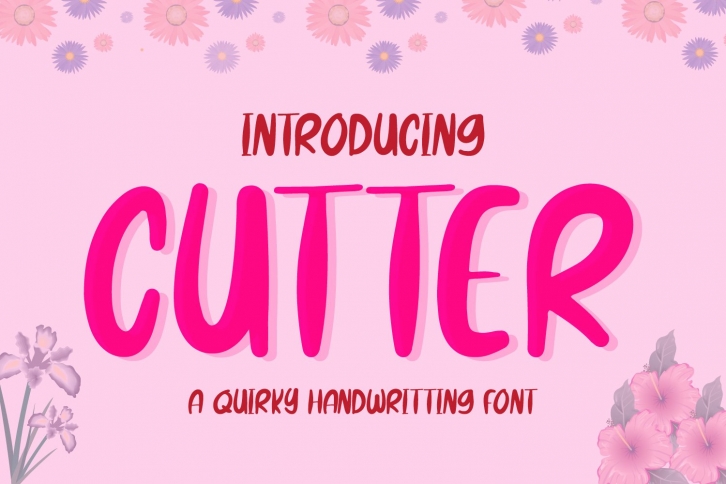
Cutter is a beautiful font that was designed by Mahesa Design. It's a great choice for designers and creatives who need such a font. It was released on March 12, 2021 and the file size is 3.55 MB. Cutter may give a more youthful, expressive and casual look to your project. It is a very beautiful, refined, elegant, and high-quality font.